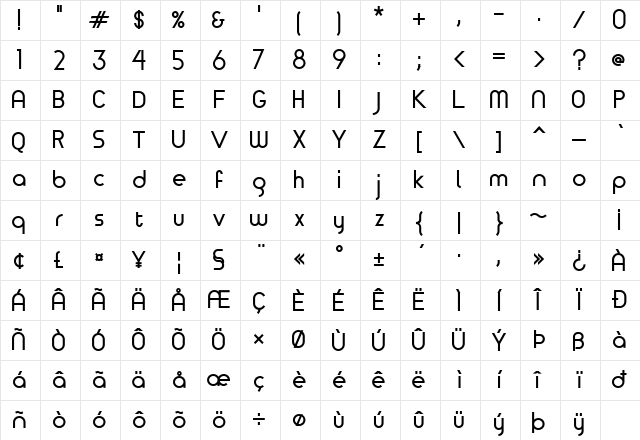
TimeBurner Bold Free Font
TimeBurner Bold
Foundry: Andres Moreno Walter
Designer: NimaVisual
Design Context for TimeBurner
TimeBurner is a composed and adaptable typeface that performs quietly and consistently across a wide range of design contexts. Its bold stroke weight gives it real presence on the page.
Who designed the TimeBurner Bold font?